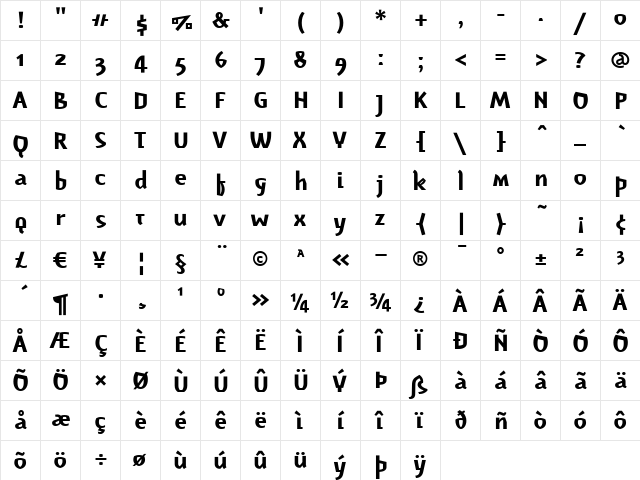
Reality Regular
Design Context for Reality Typeface
Reality takes a measured approach to typography — its balanced proportions and neutral character make it a reliable workhorse for both digital and print work.